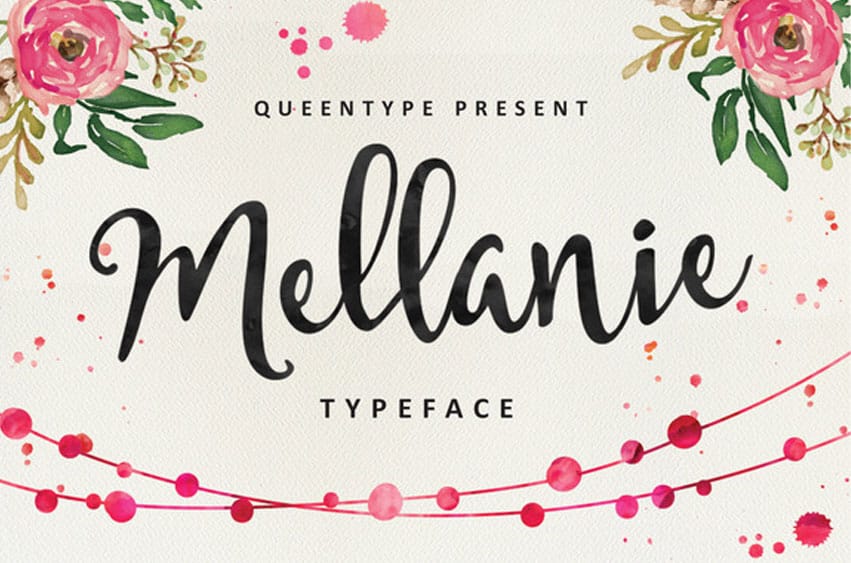
Mellanie Typeface Fontis a beautiful handmade script with a natural look.
It fits in headlines, logos, posters, flyers, invitations, name cards, branding materials, print media, editorial layouts, and many more.